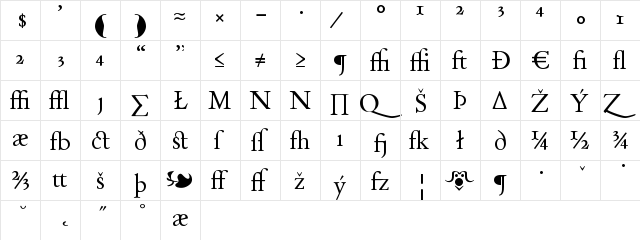
Day Roman - Expert Regular
| Foundry | F. M. Nader |
| Designer | Fredrick Nader |
Design Context for Day Roman - Expert Typeface
Day Roman - Expert takes a measured approach to typography — its balanced proportions and neutral character make it a reliable workhorse for both digital and print work.